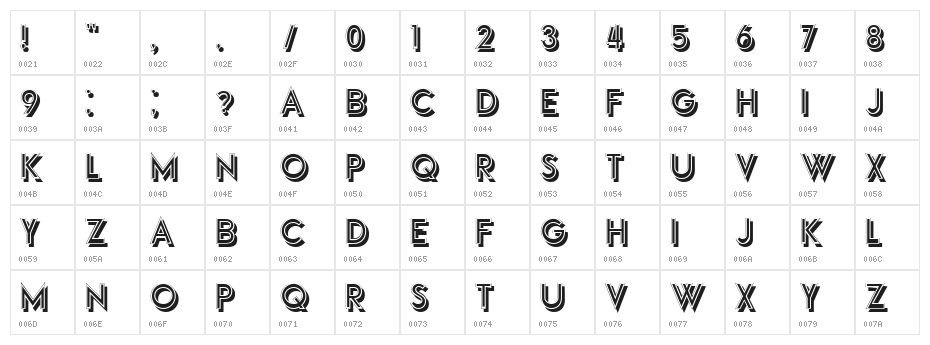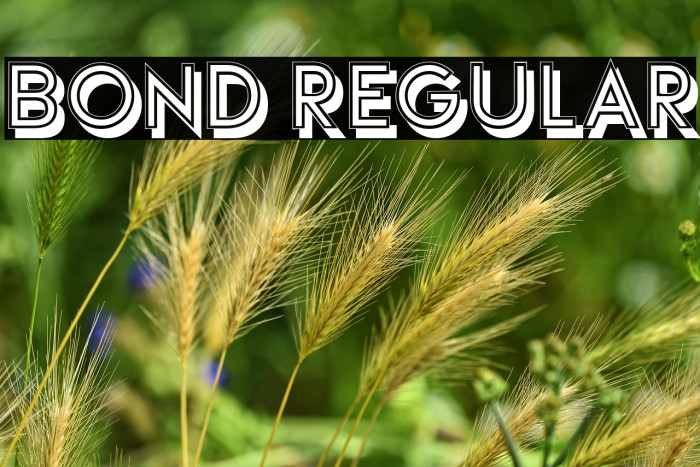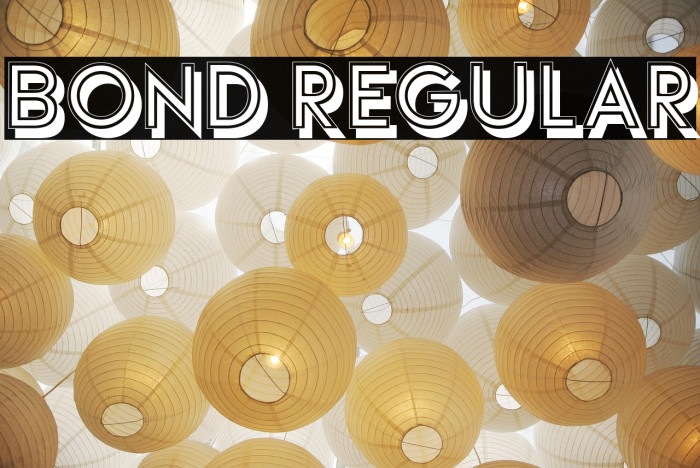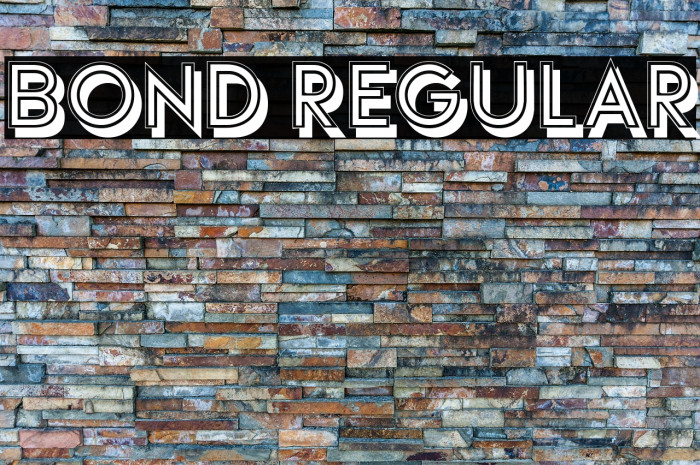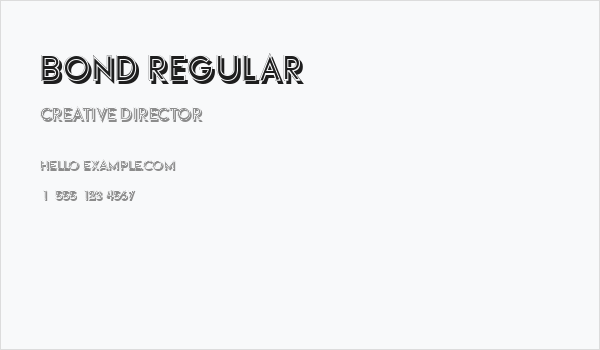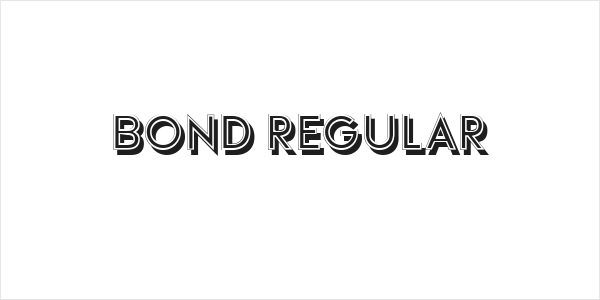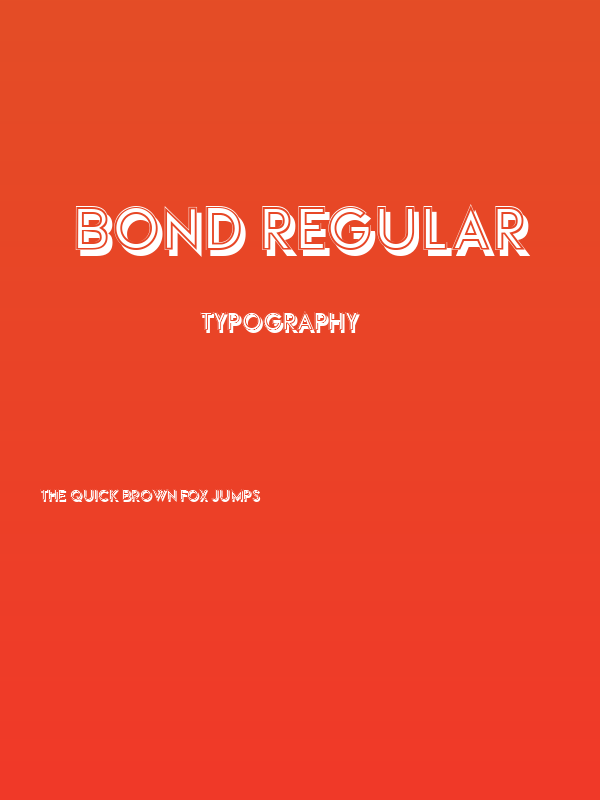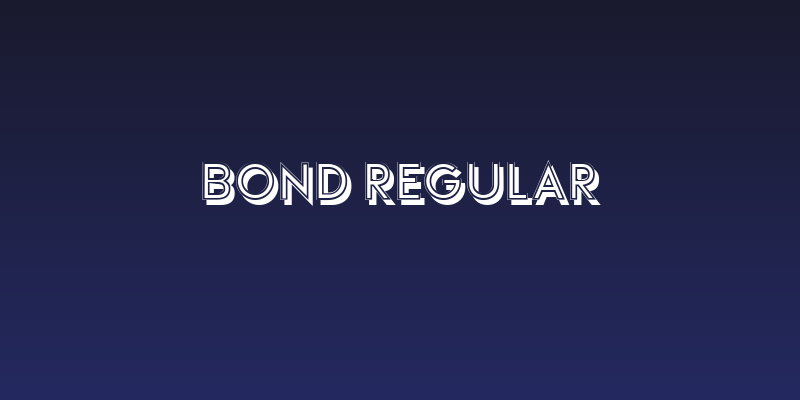
Bond Regular Font
Bond Regular Description
This font features a bold and striking design with a three-dimensional effect, achieved through the use of shadowing and outlines. The uppercase letters are prominent and commanding, making them ideal for attention-grabbing headlines. The numbers and special characters maintain the same bold style, ensuring consistency across all text elements. The font's geometric structure and clean lines give it a modern and professional appearance, while the shadow effect adds a touch of depth and sophistication.
| Proposed Projects | Ideal for posters, logos, and branding materials that require a bold and impactful visual presence. |